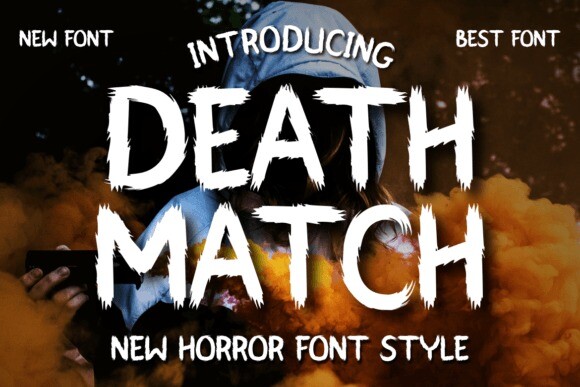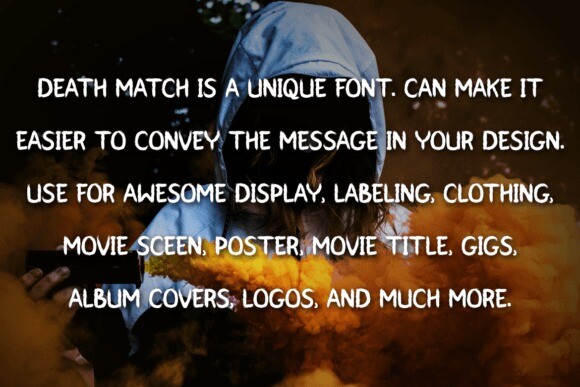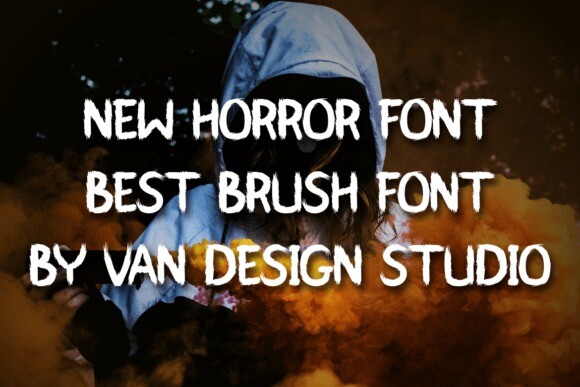
Death Match Font
Death Match Font is a unique and interesting blush display font. A little bit quirky, this font looks incredibly adept on a wide variety of contexts!